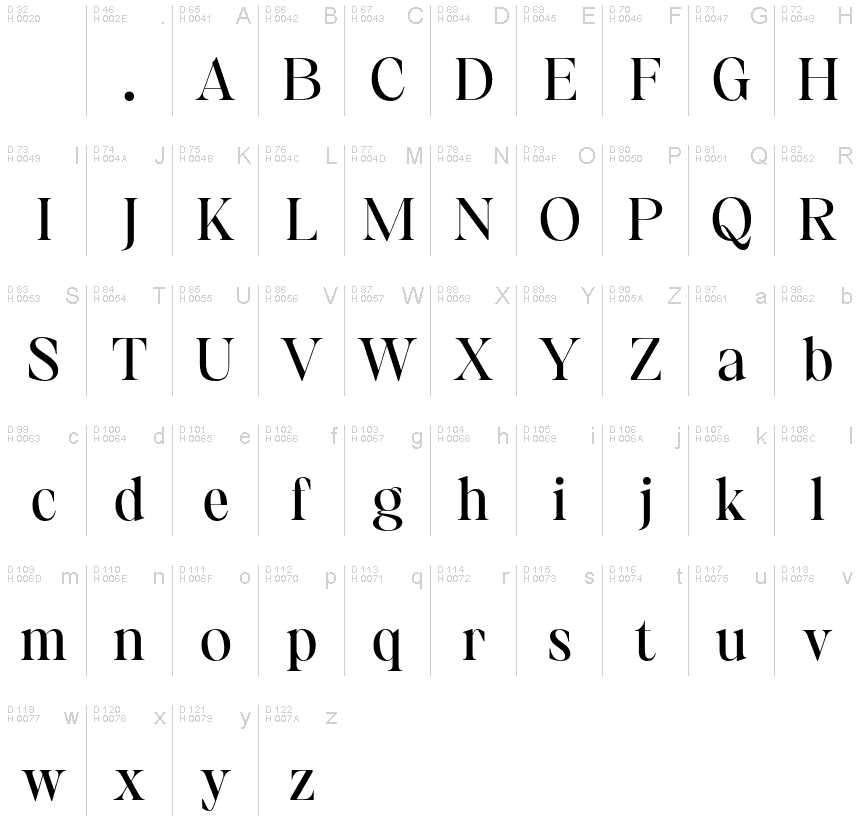
GamiliaDemo-Regular
Crafted by the talented designers at Craft Supply Co., Gamilia is a captivating serif font that adds a touch of elegance to any design project.
With its refined curves and graceful lines, Gamilia is perfect for creating eye-catching logos, sophisticated invitations, or exquisite branding materials. Its versatility allows it to seamlessly blend into various projects, whether it's a high-end fashion magazine, a luxurious hotel website, or an art gallery brochure.
Gamilia's timeless charm and legibility make it an ideal choice for those seeking to evoke a sense of class and sophistication in their designs.
With its refined curves and graceful lines, Gamilia is perfect for creating eye-catching logos, sophisticated invitations, or exquisite branding materials. Its versatility allows it to seamlessly blend into various projects, whether it's a high-end fashion magazine, a luxurious hotel website, or an art gallery brochure.
Gamilia's timeless charm and legibility make it an ideal choice for those seeking to evoke a sense of class and sophistication in their designs.
Gamilia Demo